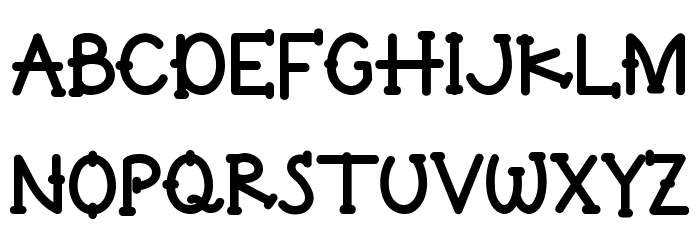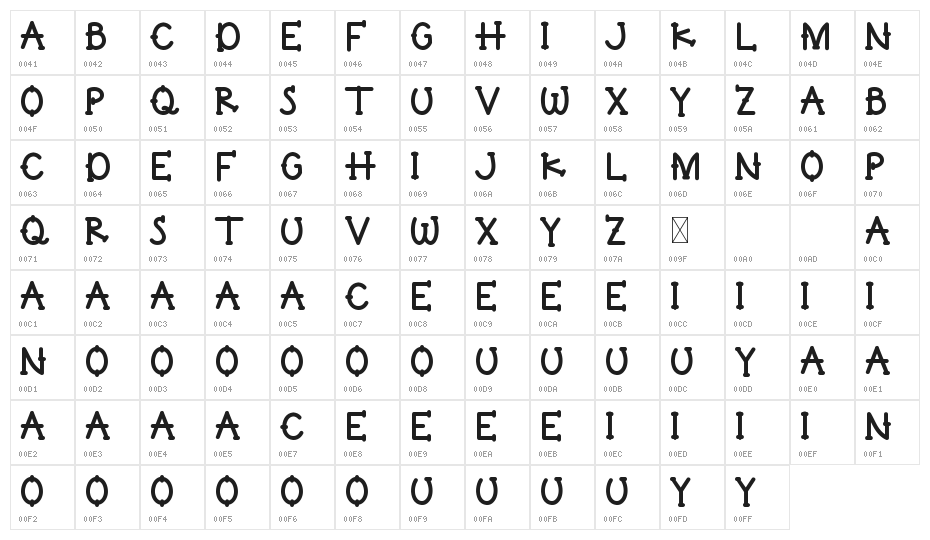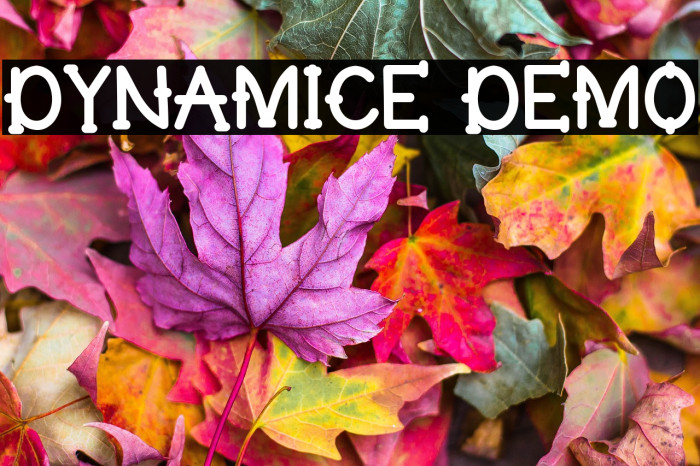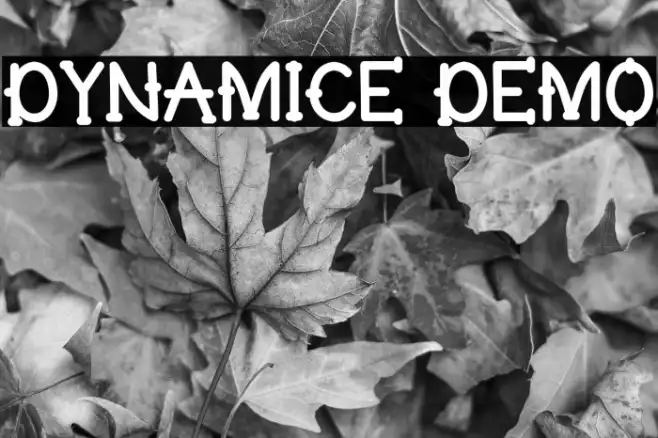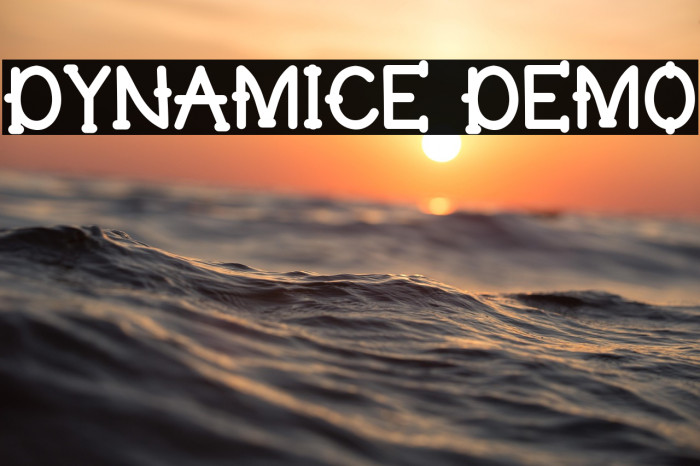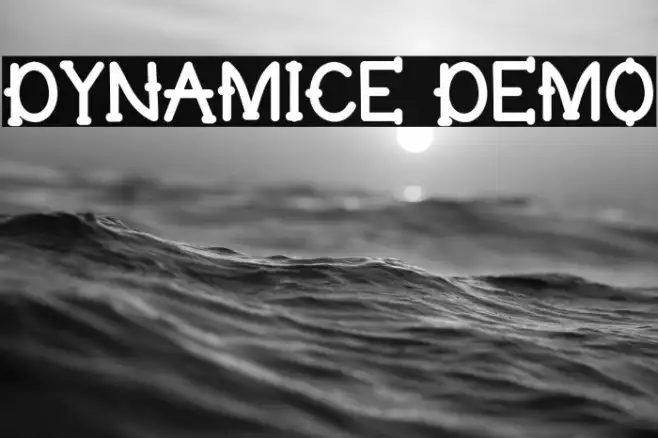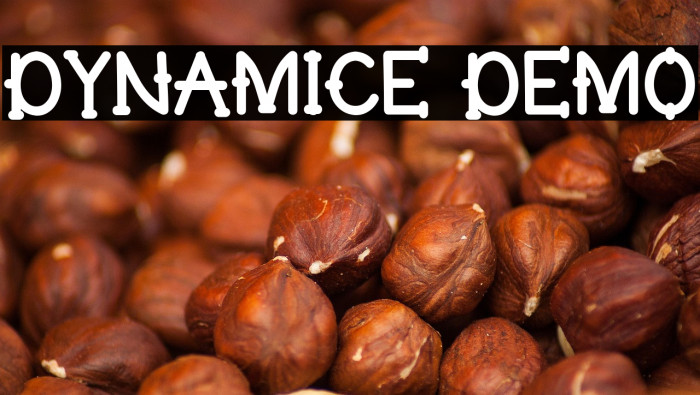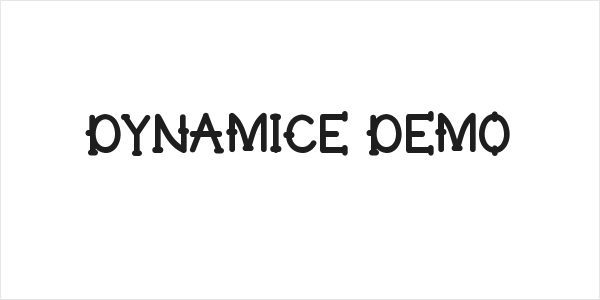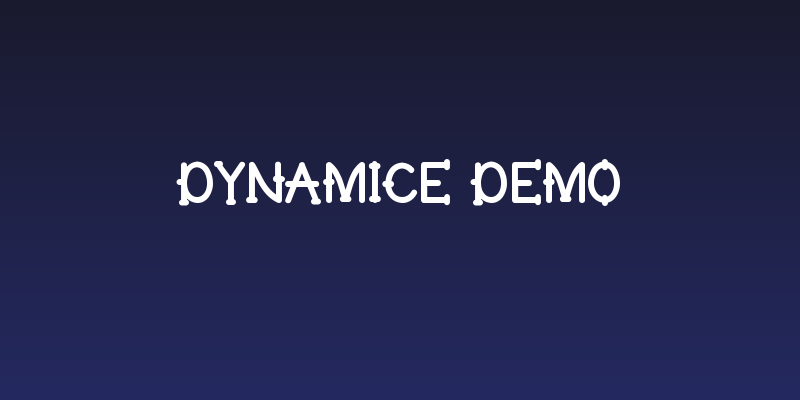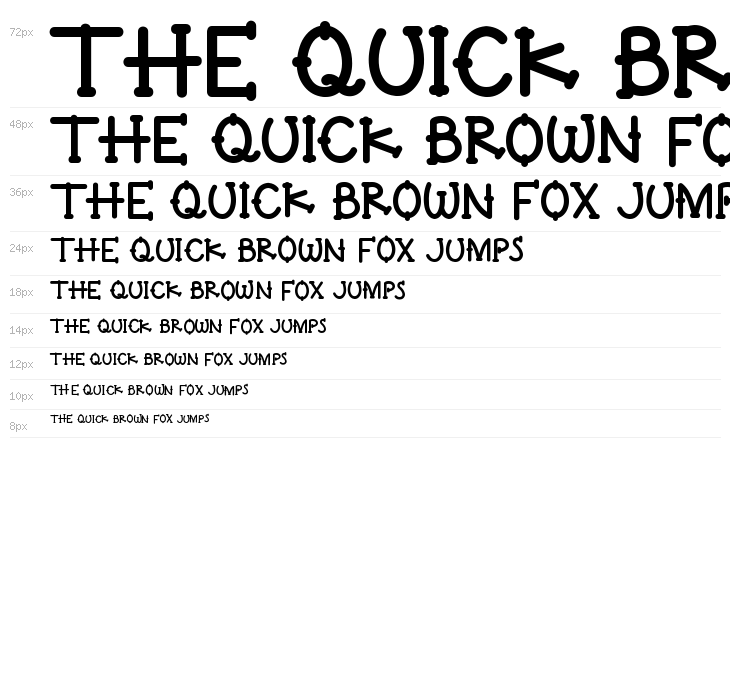
Dynamice Demo Font
Dynamice Demo Description
This font exhibits a playful and dynamic style, characterized by its rounded, bold strokes and unique geometric elements. The letters are connected with small, circular joints, giving it a distinctive, almost mechanical appearance. The uniformity in stroke width across all characters provides a balanced and cohesive look. The font maintains a consistent baseline and x-height, ensuring readability while adding a touch of whimsy. Its bold presence makes it suitable for attention-grabbing designs, while the rounded edges soften its overall impact, making it approachable and friendly.
Overall StylePlayful, Modern
Proposed ProjectsIdeal for children's books, playful branding, posters, and creative projects that require a fun and engaging typeface.